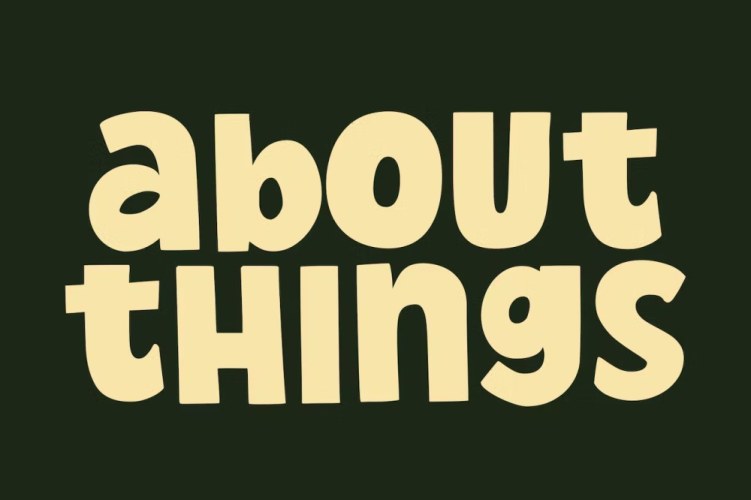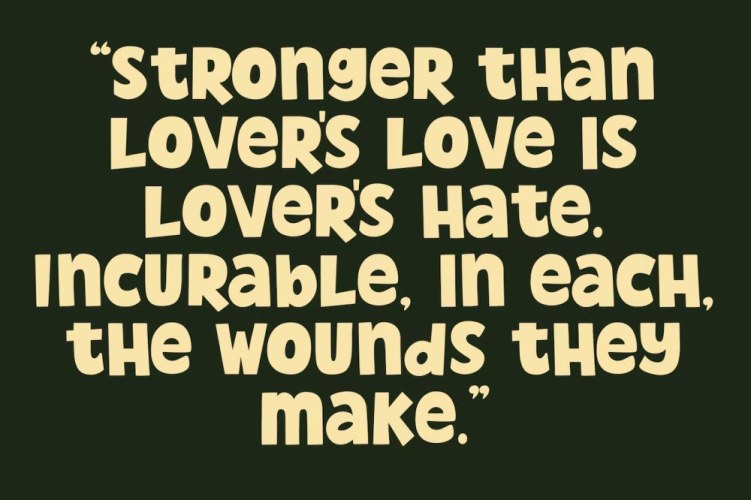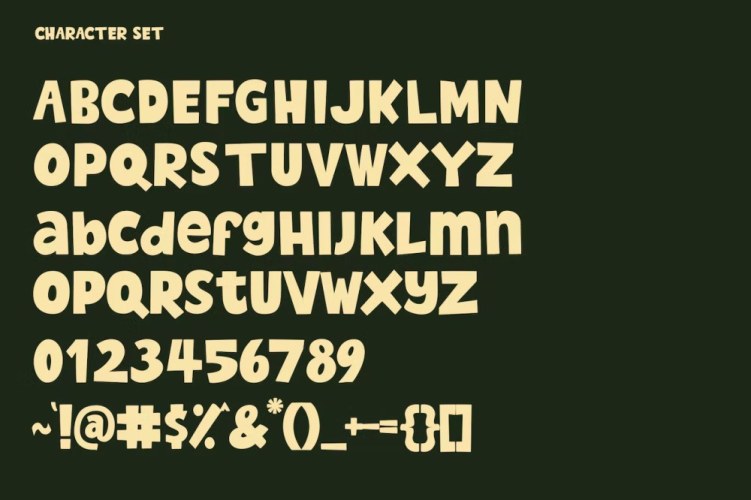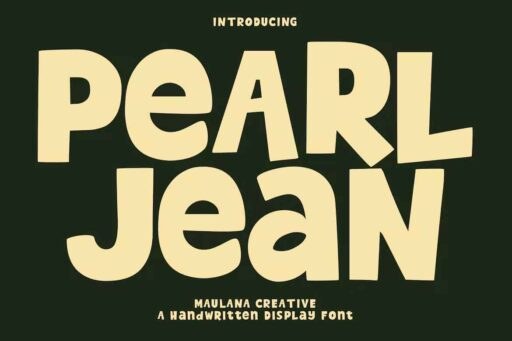
Pearl Jean Font
Pearl Jean is a light and fun handwriting font. It gives any design a personal touch with its smooth lines and fun characters. When you use ligatures and variations, you…
Pearl Jean is a light and fun handwriting font. It gives any design a personal touch with its smooth lines and fun characters. When you use ligatures and variations, you can be more creative with your work.
This font supports more than 100 languages, making it a great choice. Use it for branding, social media, movie titles, and book titles. Along with sans or serif fonts, it looks great with both short and long lines.
Pearl Jean will give your designs charm and style.
Where Pearl Jean Font works best
Pearl Jean Font is built for size: event posters, hero headlines and billboard-style layouts.
High contrast display type like Pearl Jean Font reads instantly in thumbnails and motion graphics.
What is Pearl Jean Font good for?